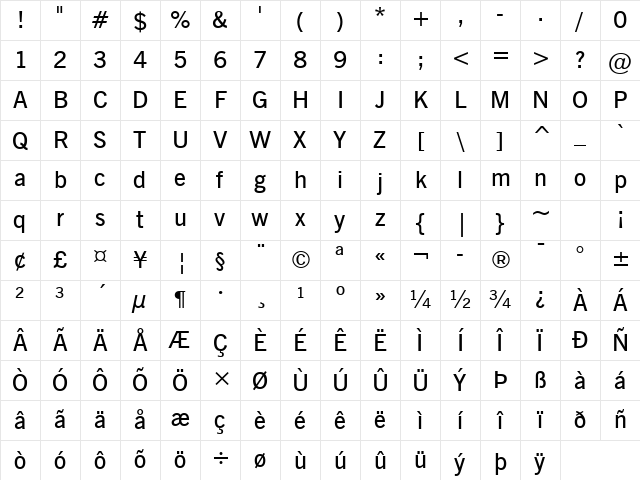
NewsGoth Dm BT Demi
Design Context for NewsGoth Dm BT
NewsGoth Dm BT is a composed and adaptable typeface that performs quietly and consistently across a wide range of design contexts.
Pro Tip: Use NewsGoth Dm BT in both headline and body roles to test its range before committing to a single application.